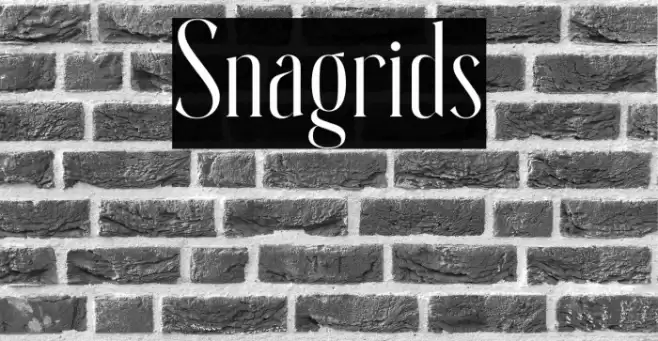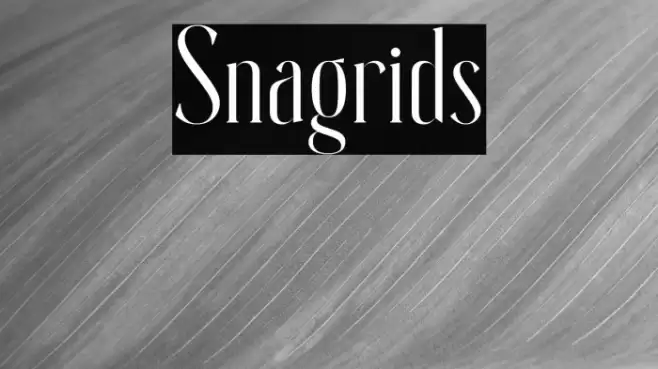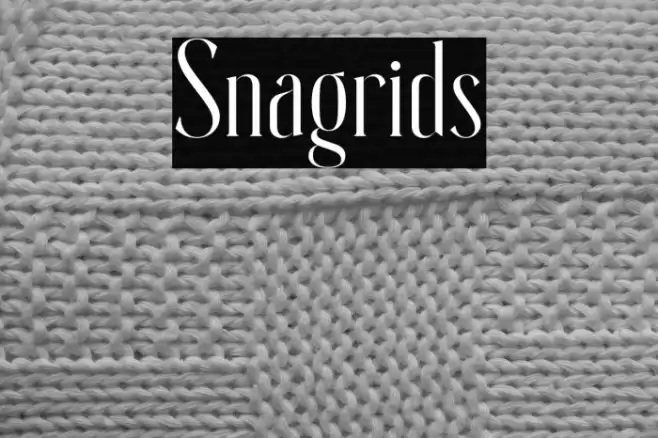
Snagrids Font
Snagrids Description
This font features a modern and elegant design with high contrast between thick and thin strokes. The uppercase letters are tall and slender, giving a sophisticated and stylish appearance. The lowercase letters maintain a consistent style, with unique characteristics such as the distinctive loop of the 'g' and the curved tail of the 'y'. The numerals are proportionate and align well with the overall aesthetic. The font's design is clean and refined, making it suitable for a variety of applications where a touch of elegance is desired.
A modern, high-contrast font with elegant, slender characters from Regular fonts.
- Proposed Projects: Ideal for luxury branding, fashion magazines, wedding invitations, and high-end product packaging.
- Overall Style: Elegant and sophisticated
- Use Case: Headlines, Logos, Branding